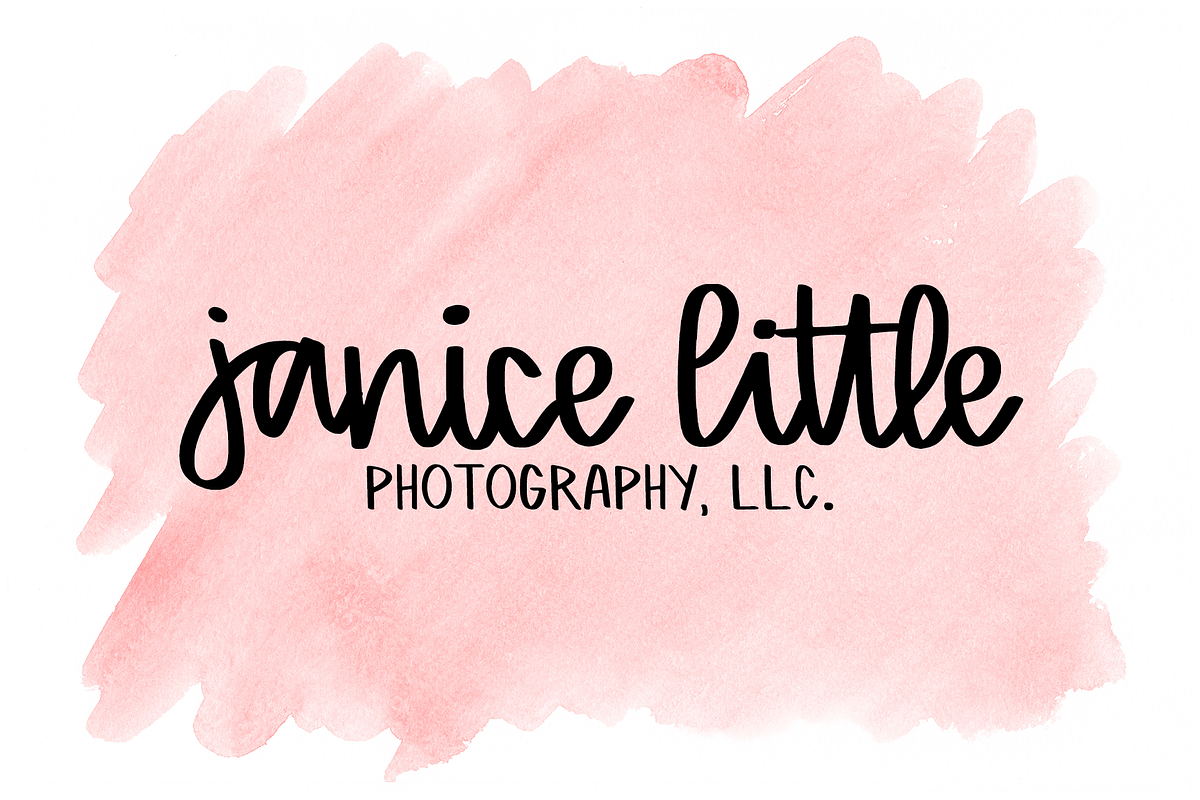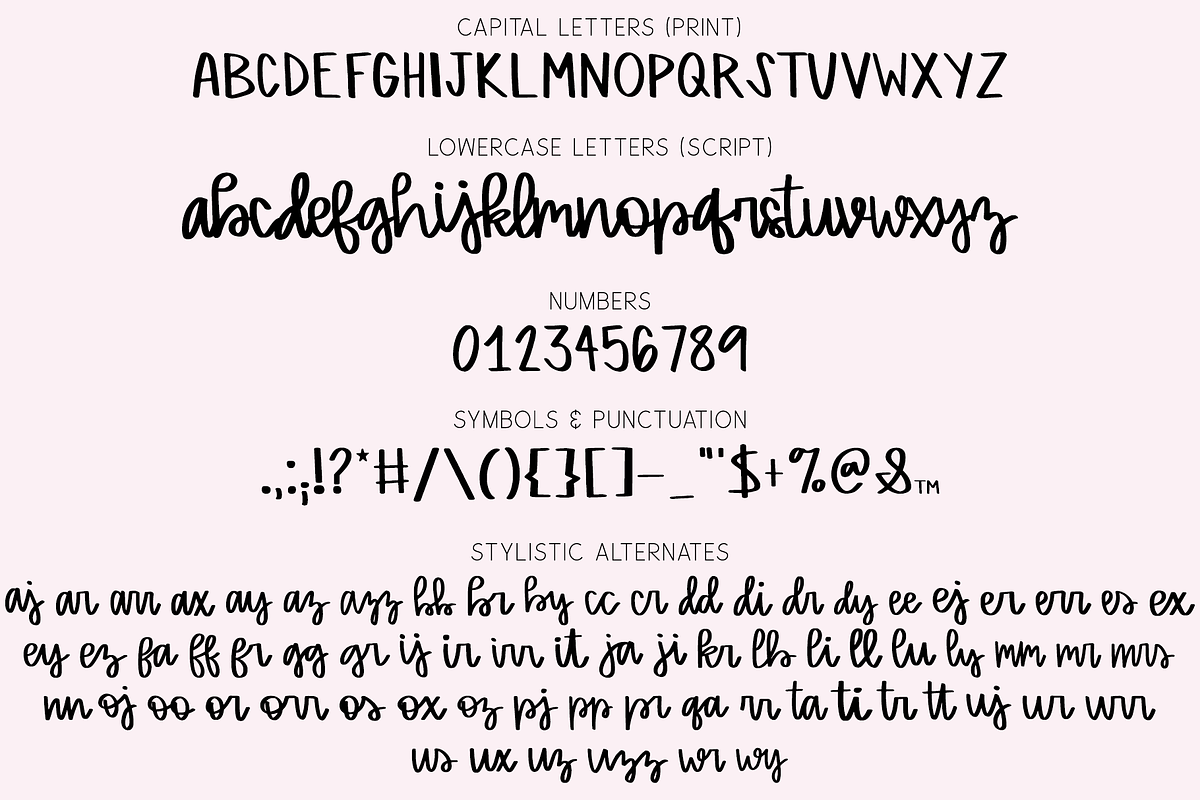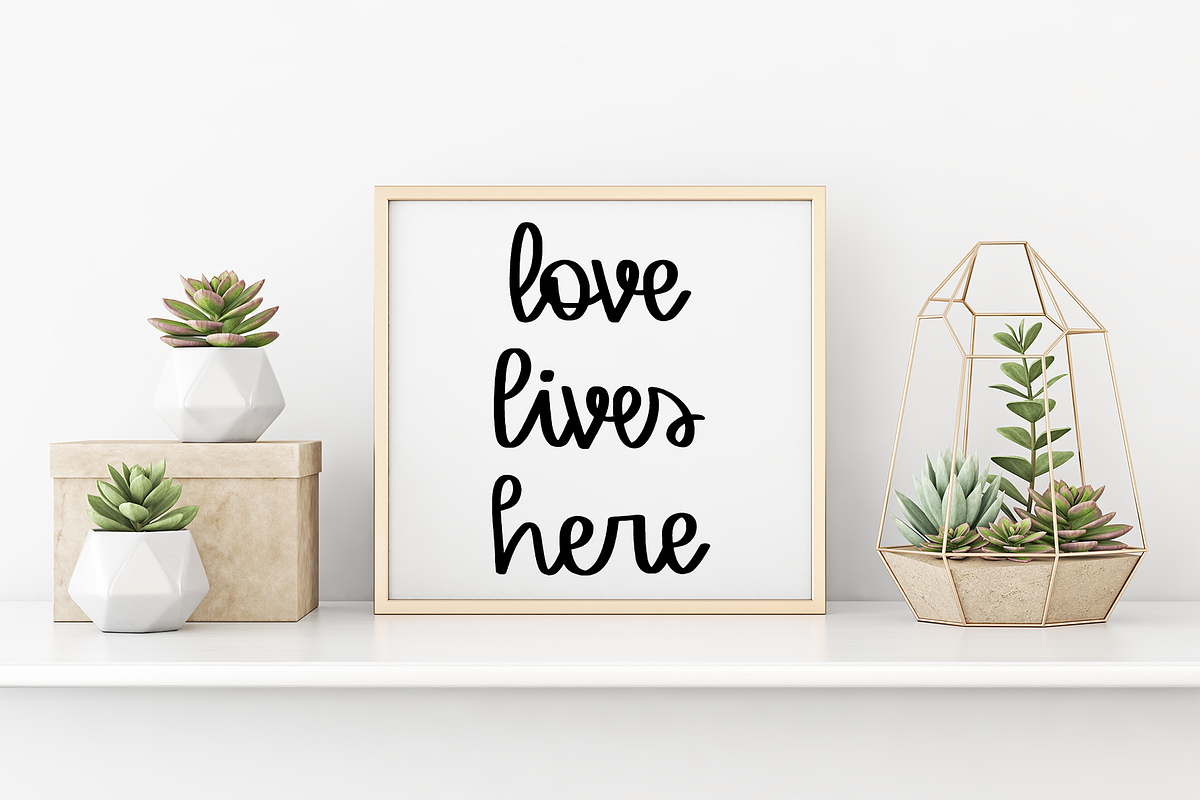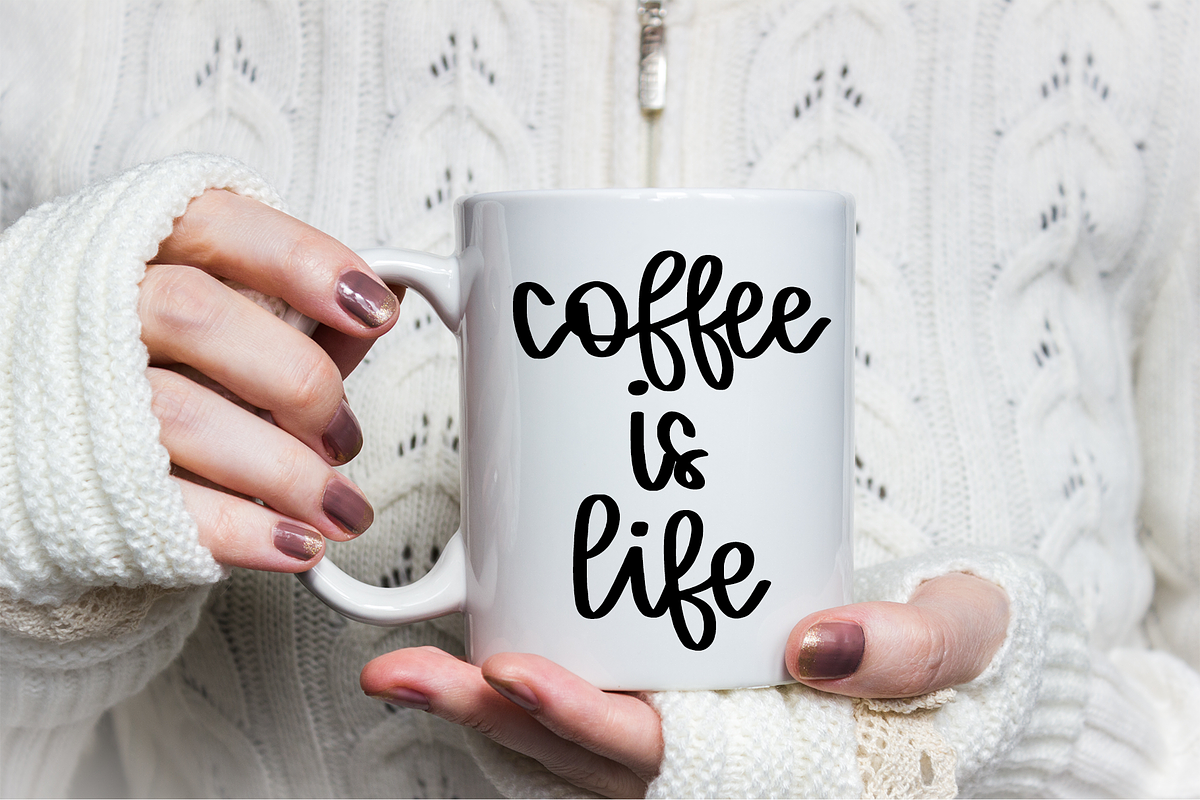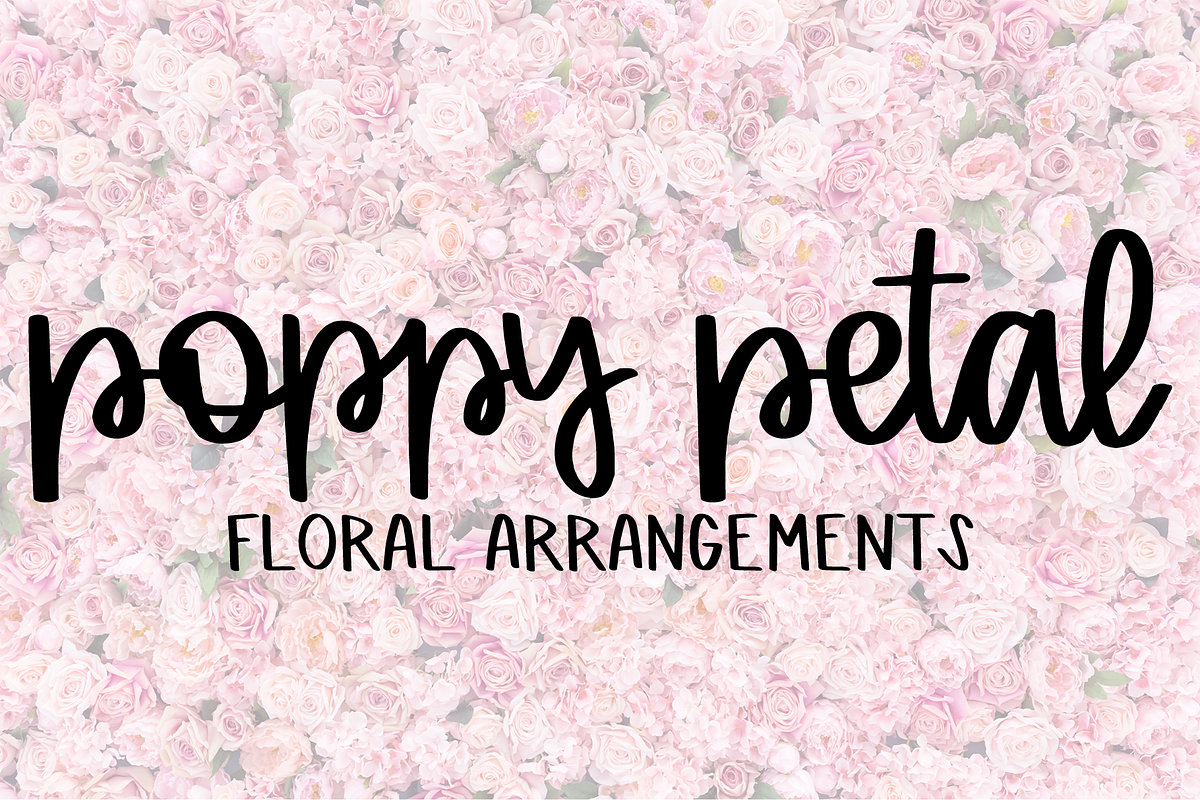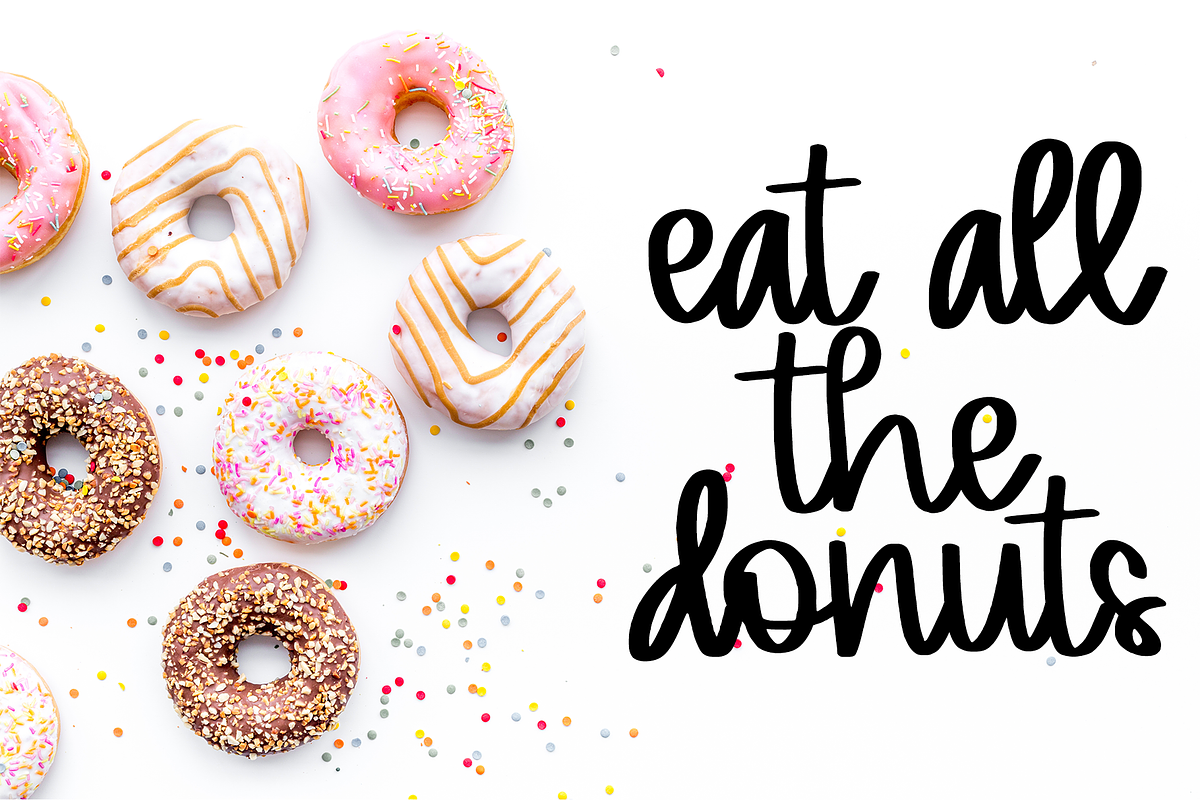
Novice - A Script & Print Font
Introducing Novice! A Fun Hand Written Font Featuring Both Print & Script
Novice has a genuine handwritten feel. Created using Procreate on the iPad, every single element is hand lettered.
Novice is a great font to use for all sorts of projects -- from graphic design, to physical products! The possibilities are endless.